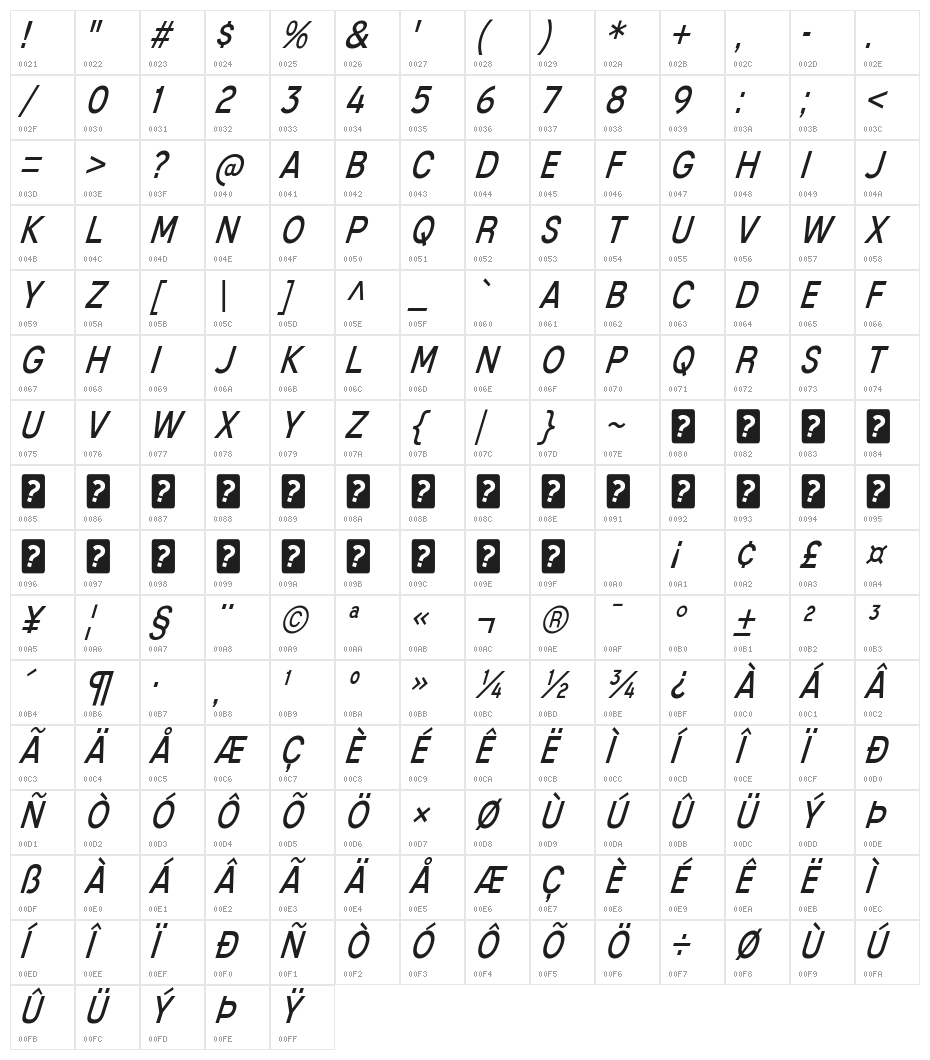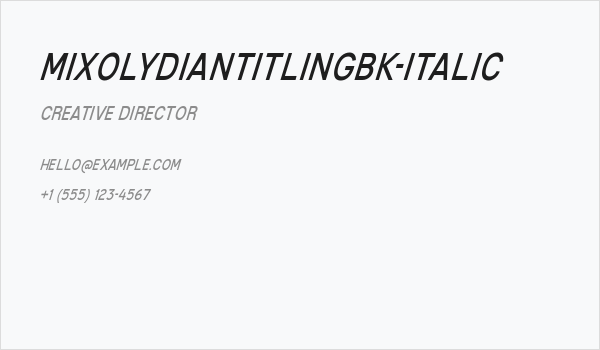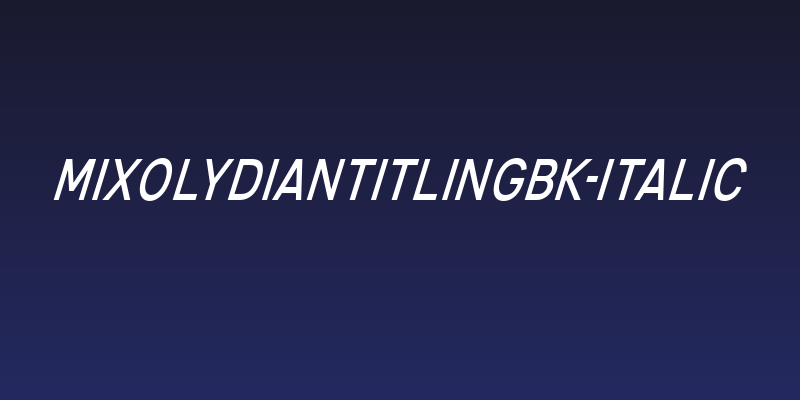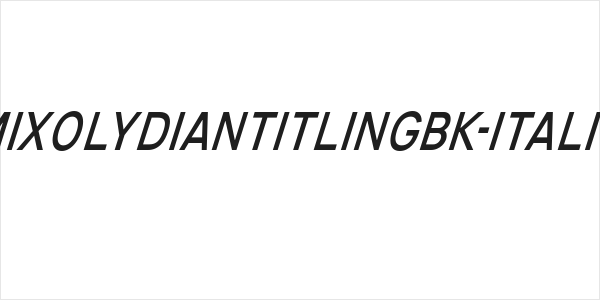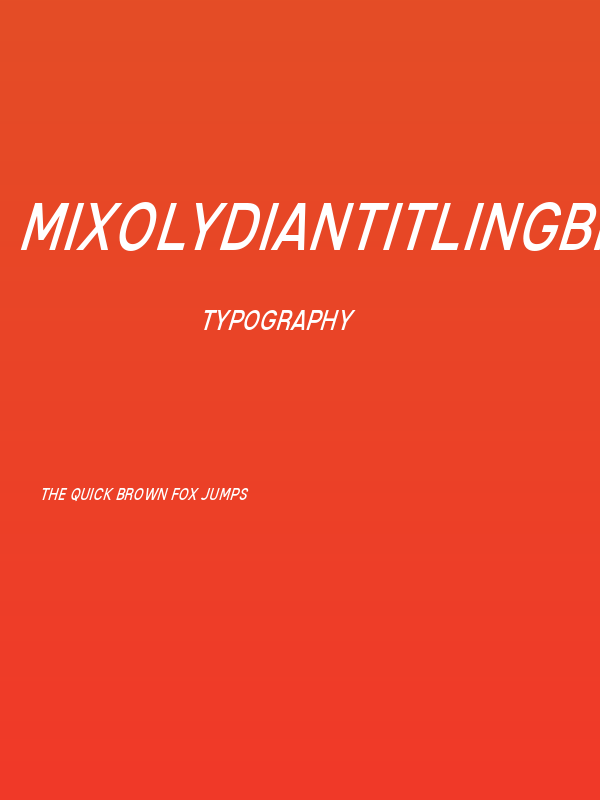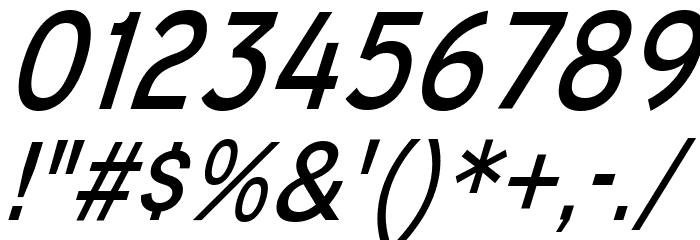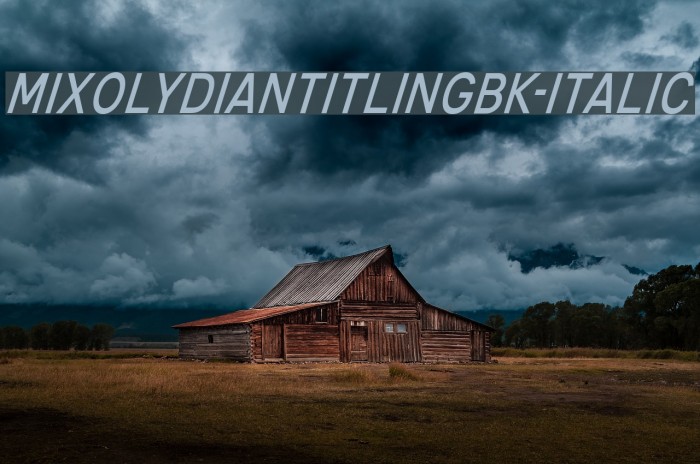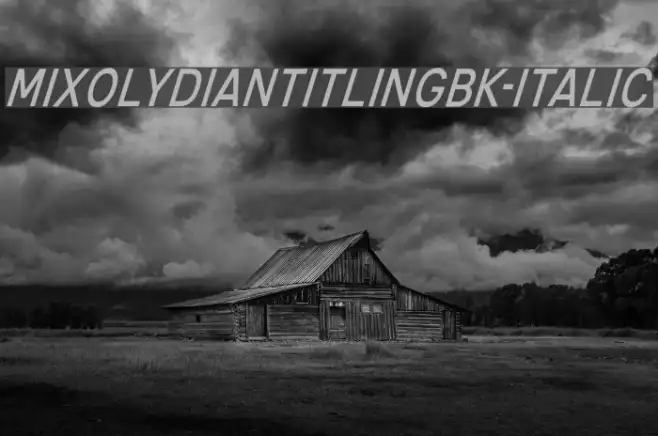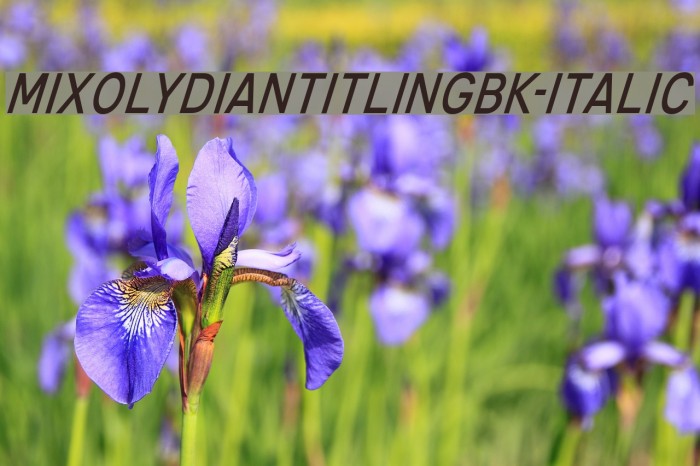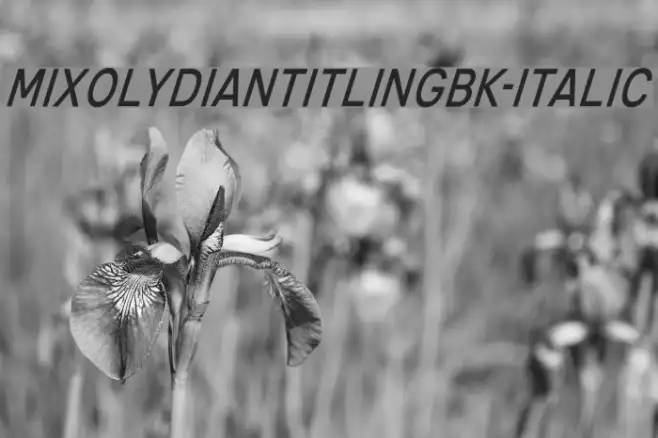
MixolydianTitlingBk-Italic Font
MixolydianTitlingBk-Italic Description
This font features a sleek, italicized style with a modern and professional appearance. The characters are slightly slanted, giving a dynamic and forward-moving feel. The strokes are consistent in thickness, providing a uniform look across all characters. The uppercase and lowercase letters are well-proportioned, and the numerals are clear and easy to read. Special characters are included, maintaining the same stylistic approach. The overall design is clean and minimalistic, making it suitable for various applications where a contemporary and elegant touch is desired.
| Use Case | Headlines, Logos, Branding |
| Proposed Projects | Ideal for branding, advertising, headlines, and editorial design projects. |